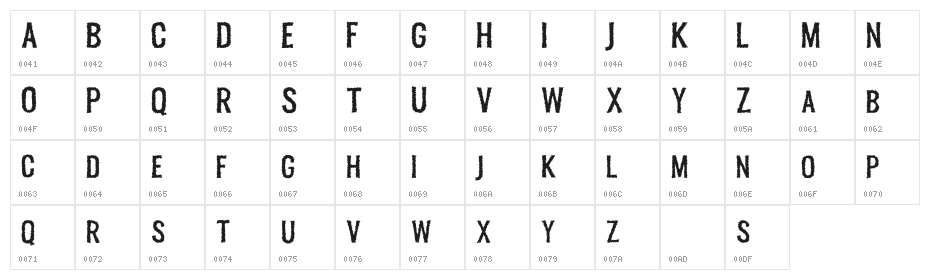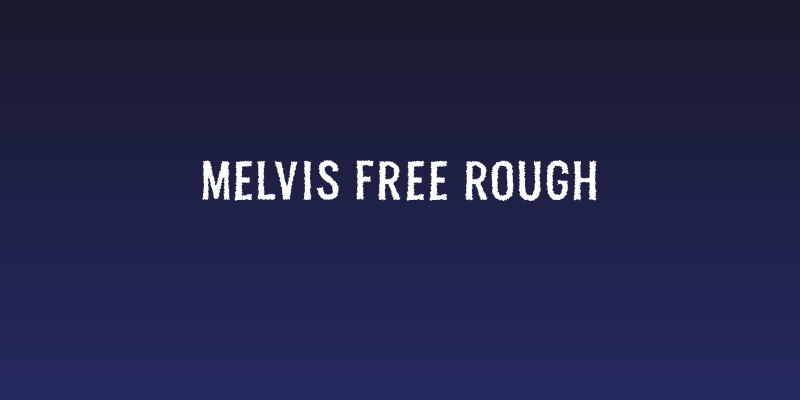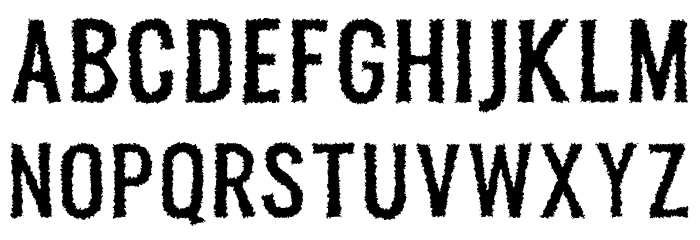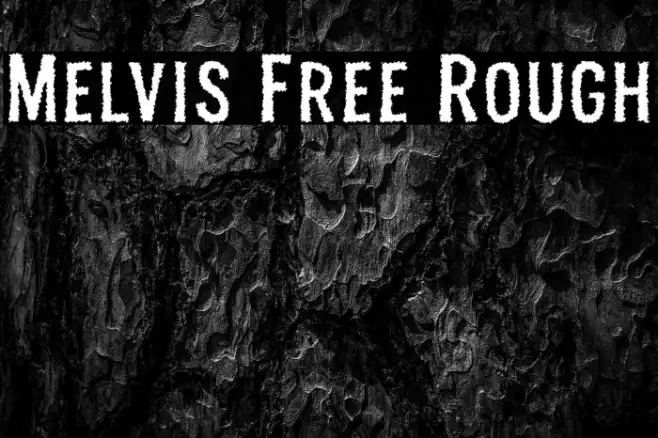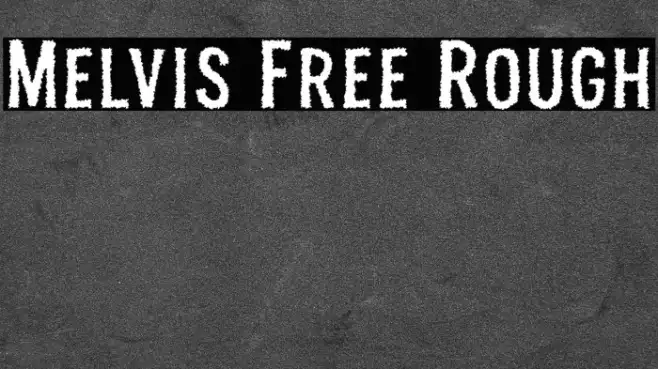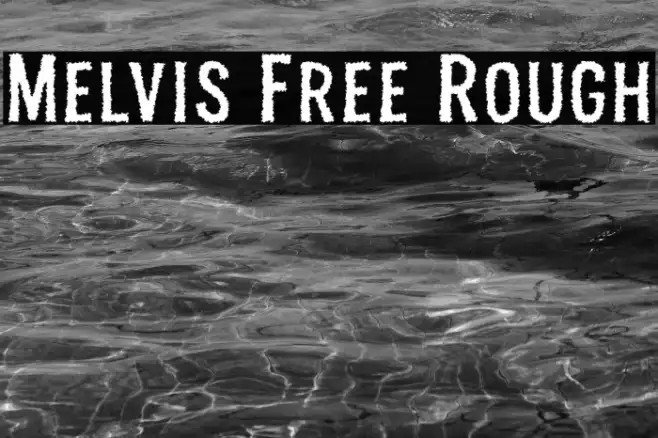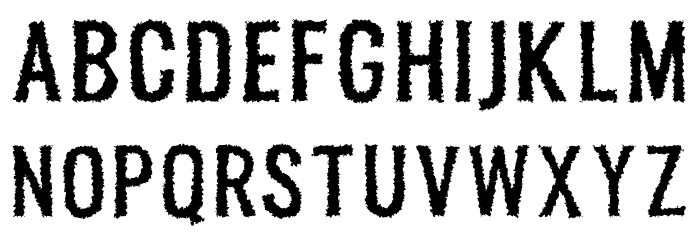
Melvis Free Rough Font
Melvis Free Rough Description
This font features a rugged, textured appearance that gives it a distinctive, hand-crafted look. The edges of each character are irregular and rough, creating a sense of movement and dynamism. Despite its roughness, the font maintains a strong, bold presence, making it highly legible even at smaller sizes. The uppercase letters are uniform in height, contributing to a cohesive and structured feel. This font's unique style is perfect for projects that require a touch of grit and personality, such as posters, album covers, or branding materials that aim to stand out with a bold statement.
| Proposed Projects | Ideal for posters, album covers, branding materials, and any design needing a bold, gritty aesthetic. |